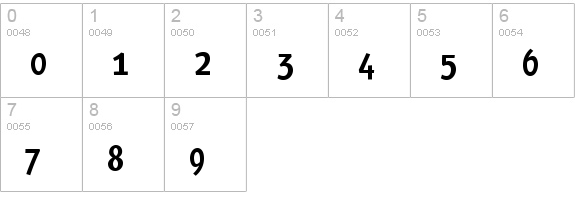
HerbertEF-RegularSmallCaps Font Details
HerbertEF-RegularSmallCaps font is a versatile and elegant typeface that combines classic style with a modern twist. Its small caps design adds a touch of sophistication and professionalism to any project. This font is perfect for headings, titles, and other design elements that require a refined and polished look. Best of all, HerbertEF-RegularSmallCaps font is completely free to download at FontsMarket.com. Whether you're working on a personal project or a professional design, this font will elevate your work and make a lasting impression. Don't miss out on this fantastic opportunity to enhance your design portfolio with the timeless beauty of HerbertEF-RegularSmallCaps font.